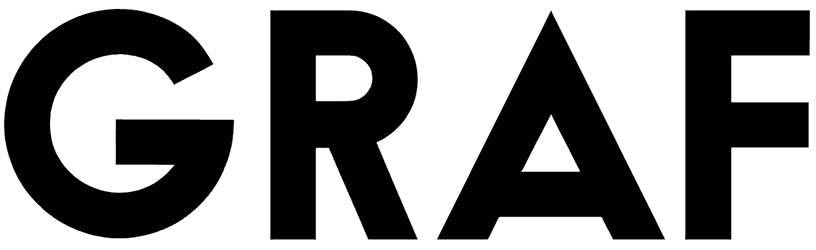
Graf Font
Graf is a bold sans-serif font that can add a playful and casual atmosphere to your resume. This font’s thick and impressive letters make it ideal for almost any project, regardless of the time of year. Please give it a…
Graf is a bold sans-serif font that can add a playful and casual atmosphere to your resume. This font’s thick and impressive letters make it ideal for almost any project, regardless of the time of year.
Please give it a glowing star so you can easily find it when you don’t need small letters for poster design, advertising, or packaging. Graf can also be paired with RB stock embellishments if you want to add more to your plans.